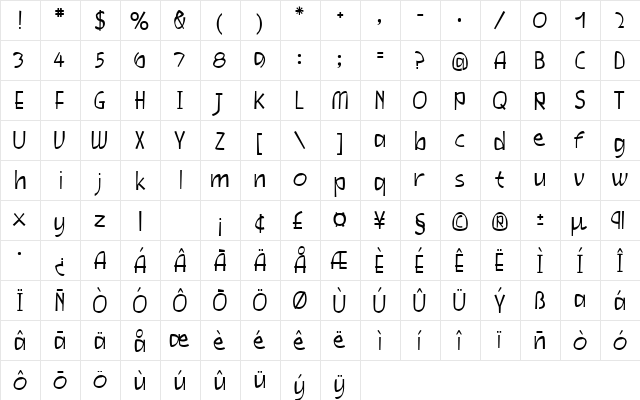
Frik Regular
Design Context for Frik Typeface
Frik takes a measured approach to typography — its balanced proportions and neutral character make it a reliable workhorse for both digital and print work.